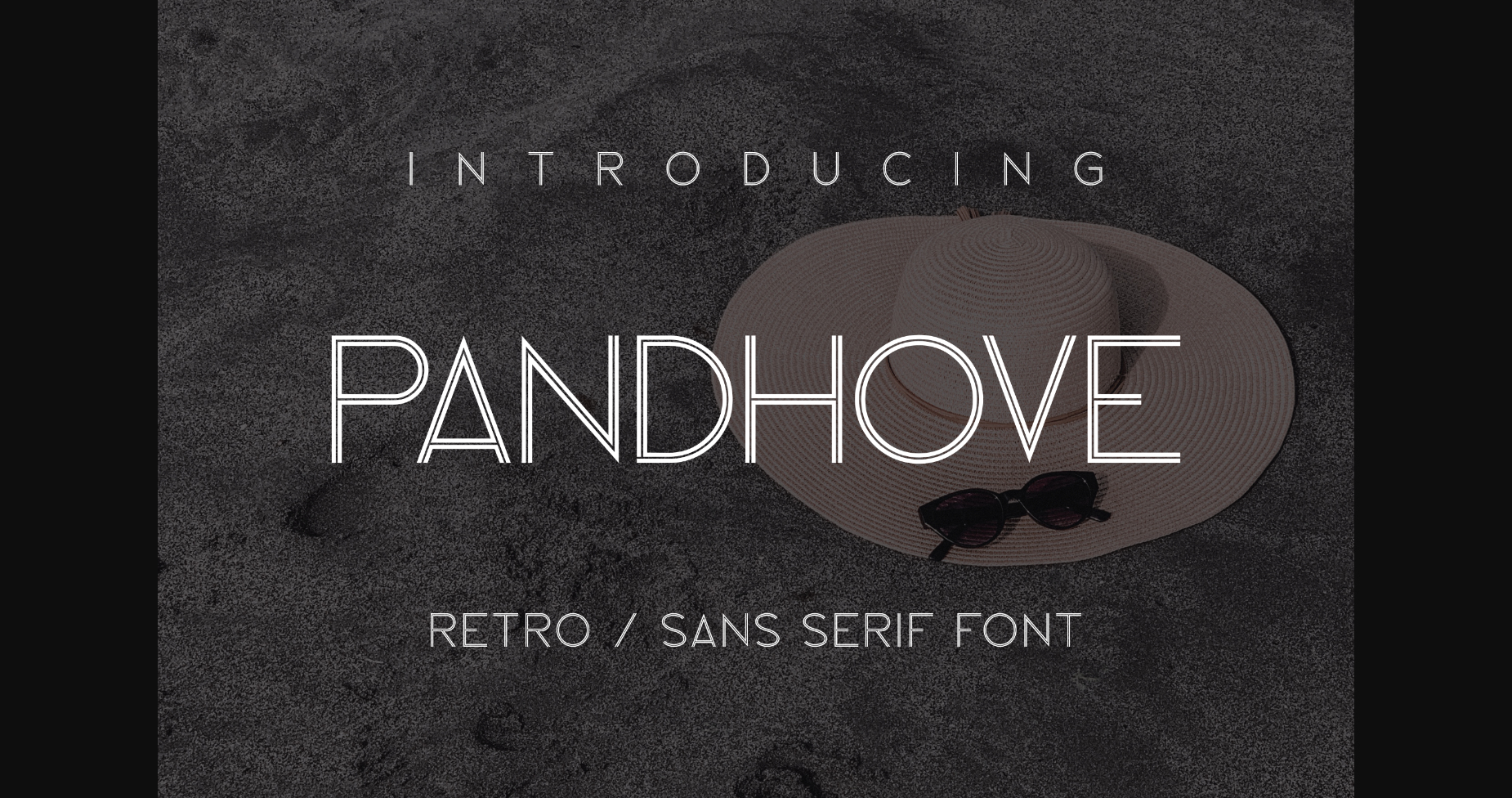
About Phandove Font
Pandhove is a legendary font from the 80-90s. This font in ancient times often appeared in romantic cinema. Maybe, you are one of the fans of old movies or creators of 80s products, well, this is the right font to accompany your product. Or maybe you are a lover of unique fonts of the Monoline type, this is a blend of Sans and Monoline.